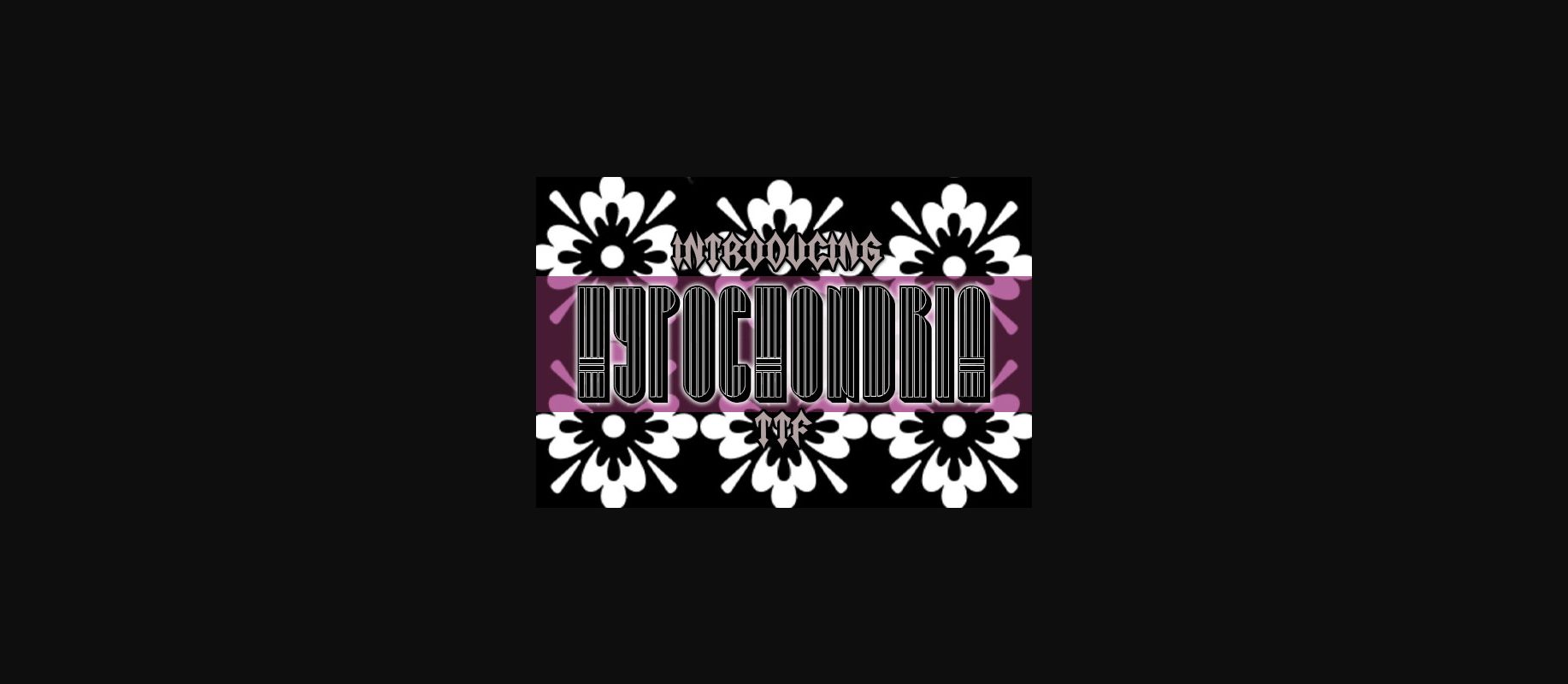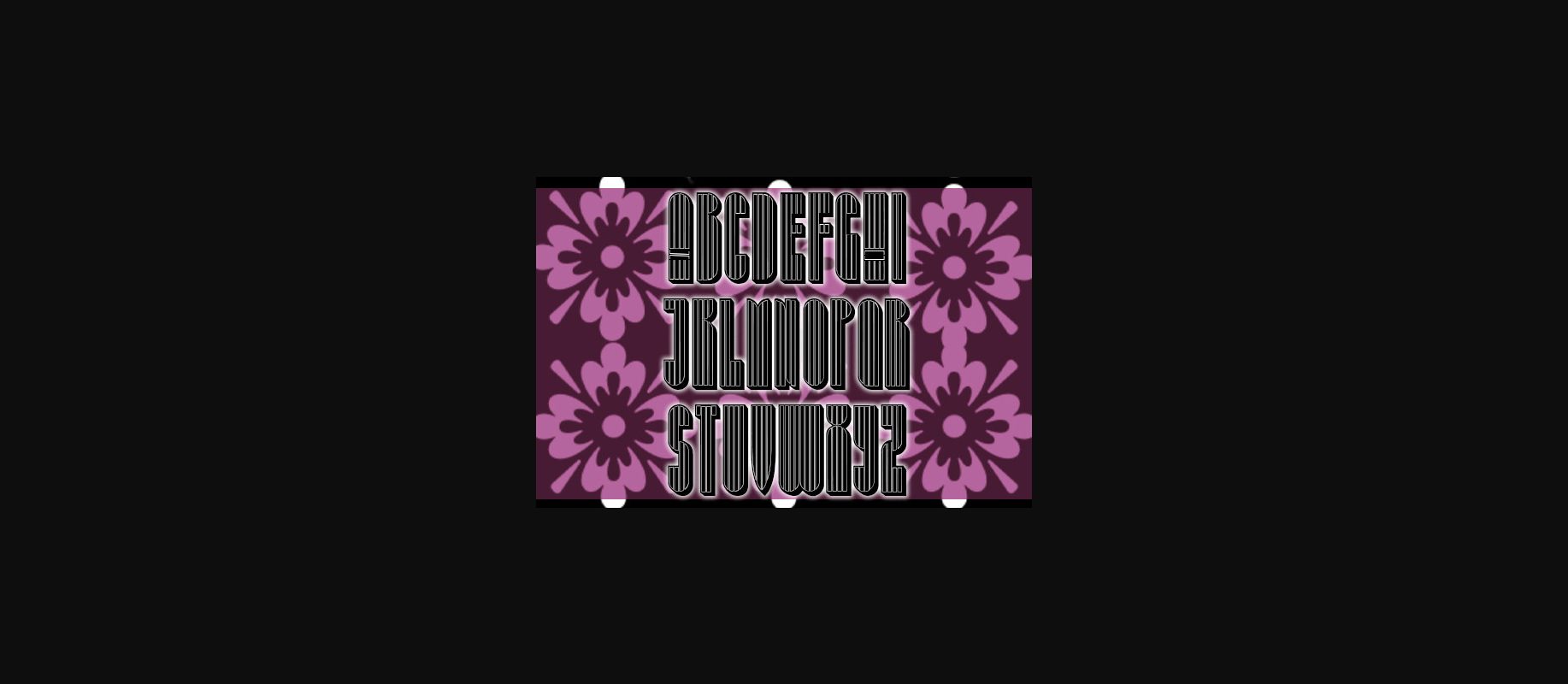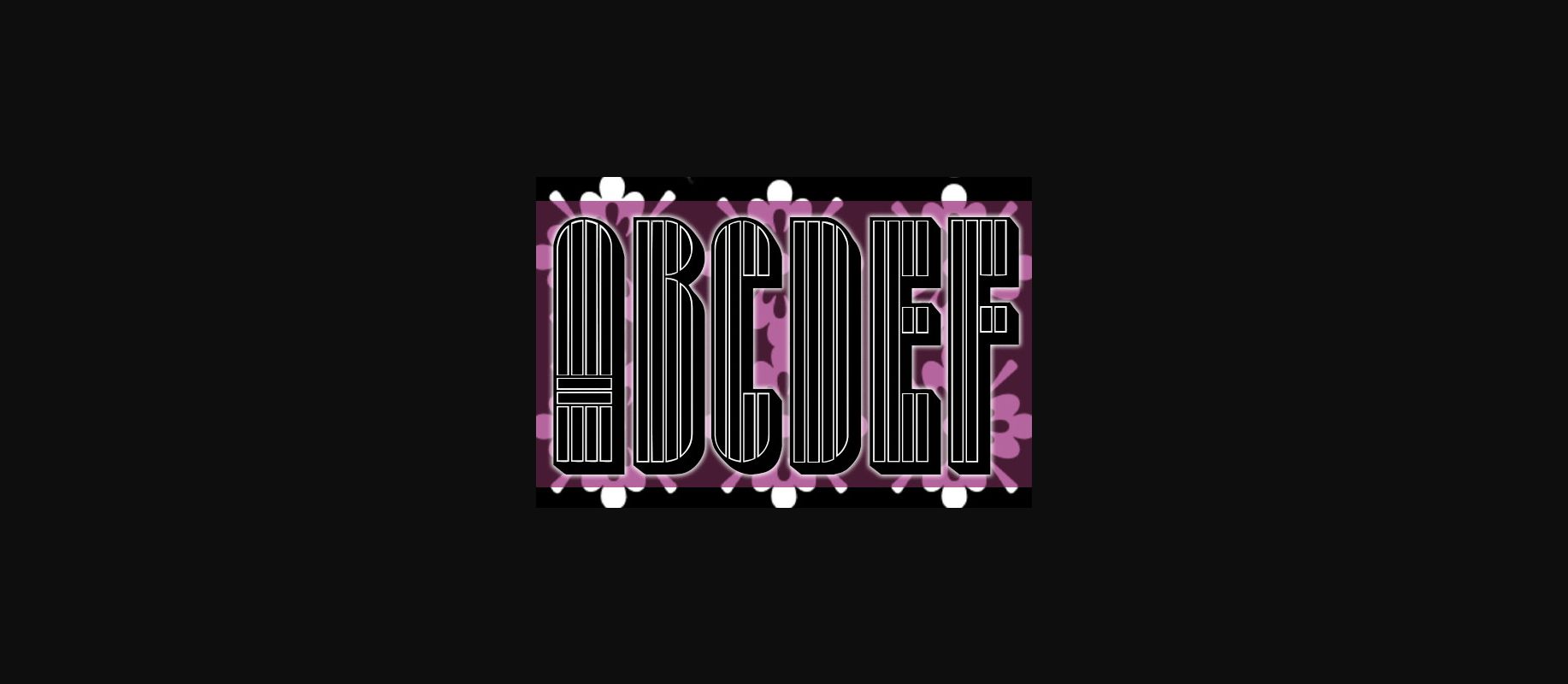
HomeDecorative FontsHypochondria Font Decorative Fonts Hypochondria Font FacebookTwitterPinterestWhatsApp 1 of 5 ... Hypochondria Font Poster 2... Hypochondria Font Poster 3... Hypochondria Font Poster 4... Hypochondria Font Poster 5... About Hypochondria Font Hypochondria is a blocky retro typeface that will look amazing on any of your designs. Use this font on posters, flyers, and prints. DOWNLOAD NOW 106 0 People also explored Amedina Script Font Happy Everyday Font Duo 2 Coffee Cup Mockups Angry Typens Font Glitch Patterns Font Yolks Font Lemonshue Font Heart of Love Font Valentine’s Pink Coffee Mug Mock Up Shatige Font Xmas Coming Font Smashed Font TagsHypochondria Font Previous articleAlqamar Ramadan Monogram FontNext articleStar Valentine Font LEAVE A REPLY Cancel reply Comment: Please enter your comment! Name:* Please enter your name here Email:* You have entered an incorrect email address! Please enter your email address here Website: Save my name, email, and website in this browser for the next time I comment. Unlock Endless Creativity with the FREE September Clipart Huge Bundle (Valued at $700!) Personal Use Free Lost Treasure Personal Use Free Read more Built Tilting Personal Use Free Read more Nickainley Personal Use Free Read more Sellena Brush Font Personal Use Free Read more BLOG Exploring Font Trends Shaping Communication in the Digital Era Fonts, like all design elements, are subject to trends. They play a crucial role in communicating a brand's personality,... Free Fonts Risk: Why Free Fonts Can Be Dangerous for Designers To increase your work productivity, choose the most readable fonts. Top 7 Google Fonts Alternatives for Faster and Privacy-Friendly Web Design (2025)